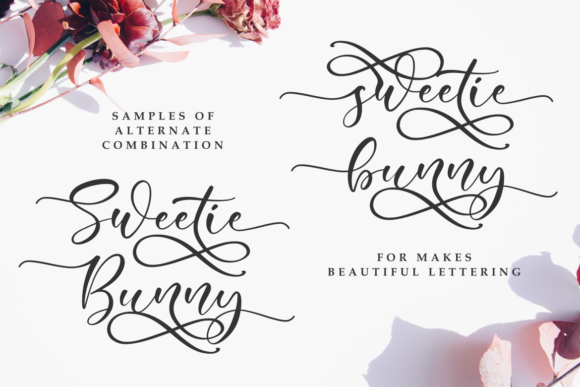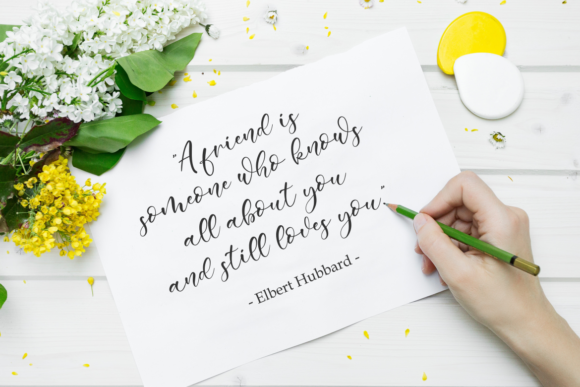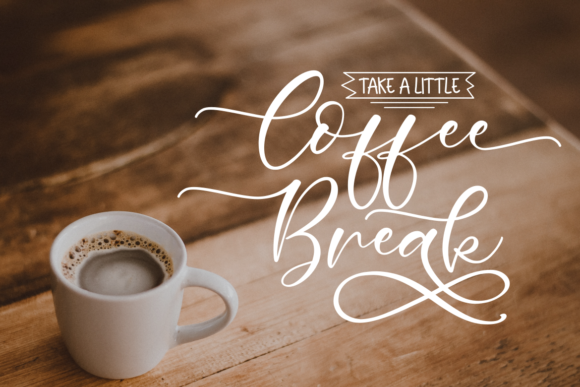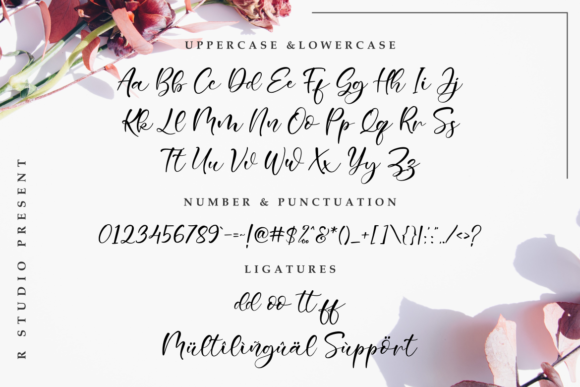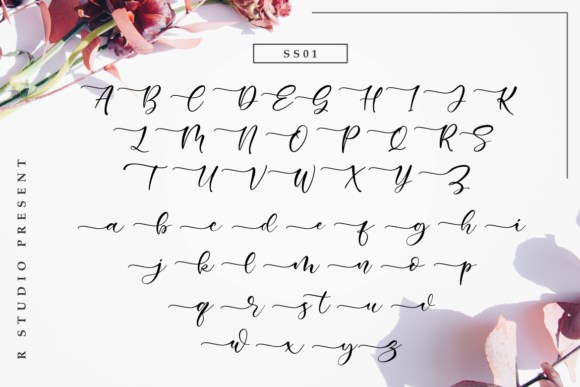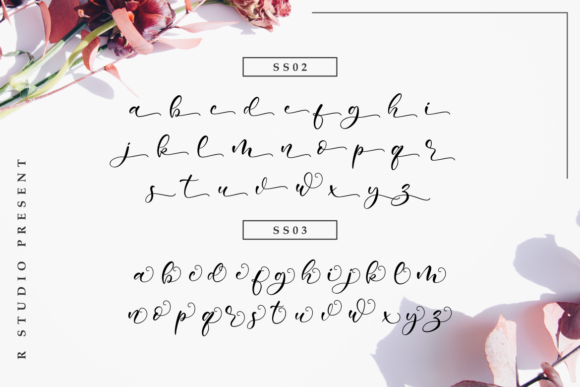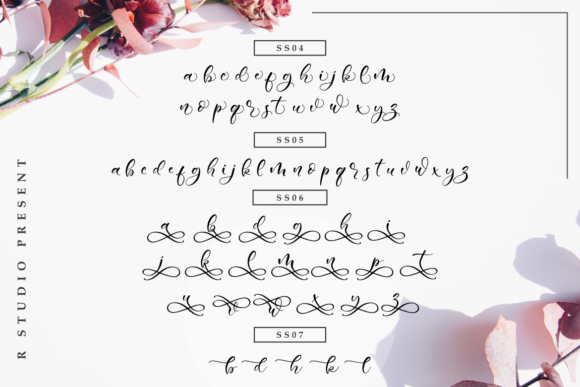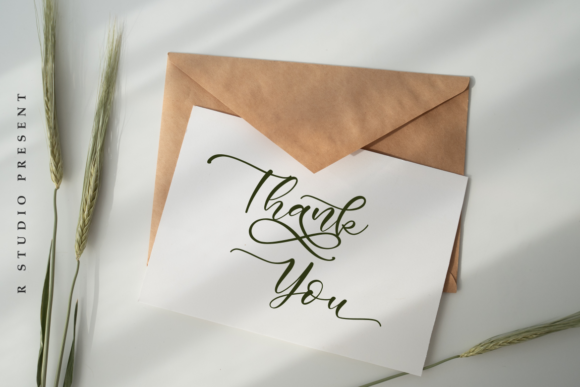
Sweetie Bunny Font
About Sweetie Bunny Font
Sweetie Bunny is a handwritten script with an elegant look. It has a feminine charm that is perfectly suited for a wide variety of projects!